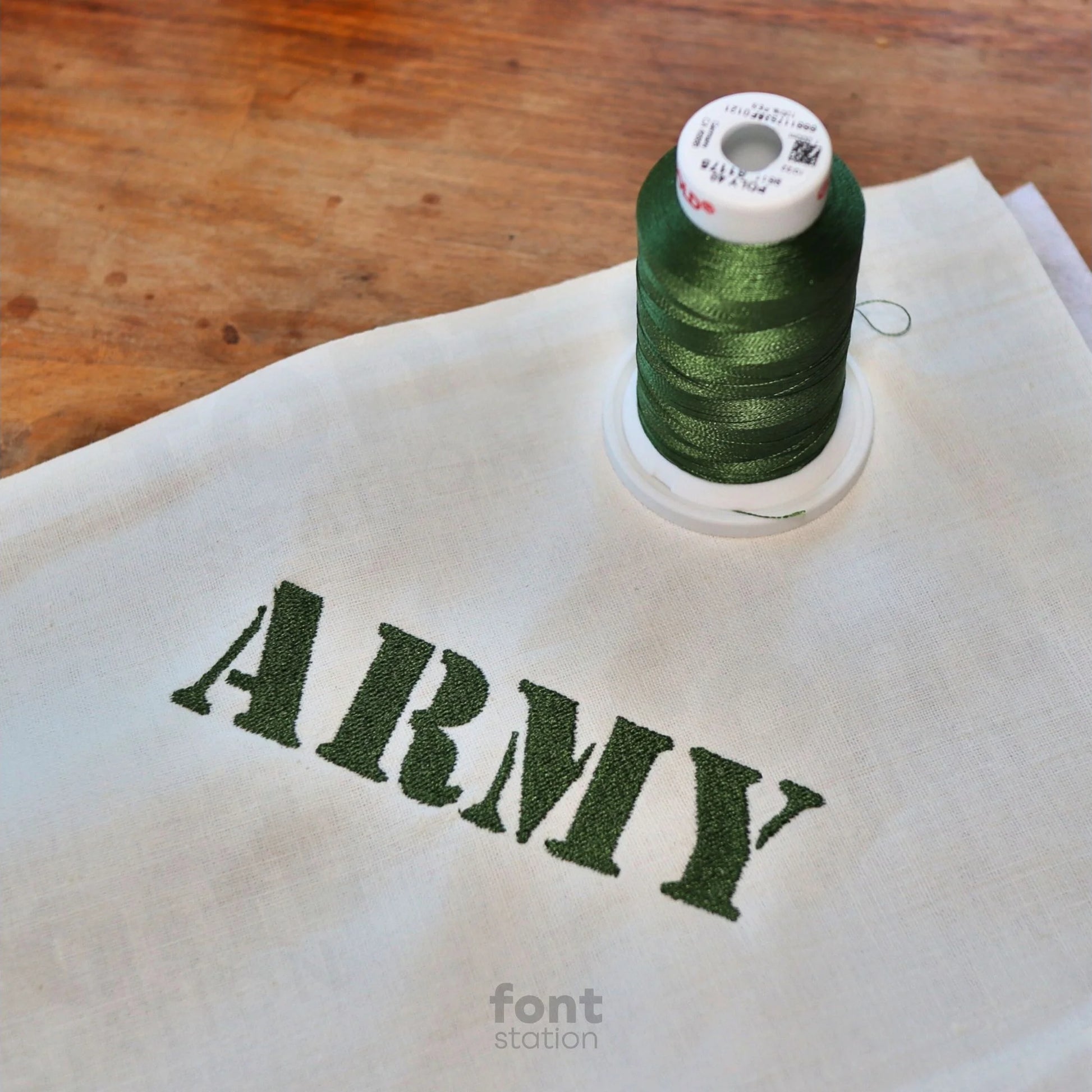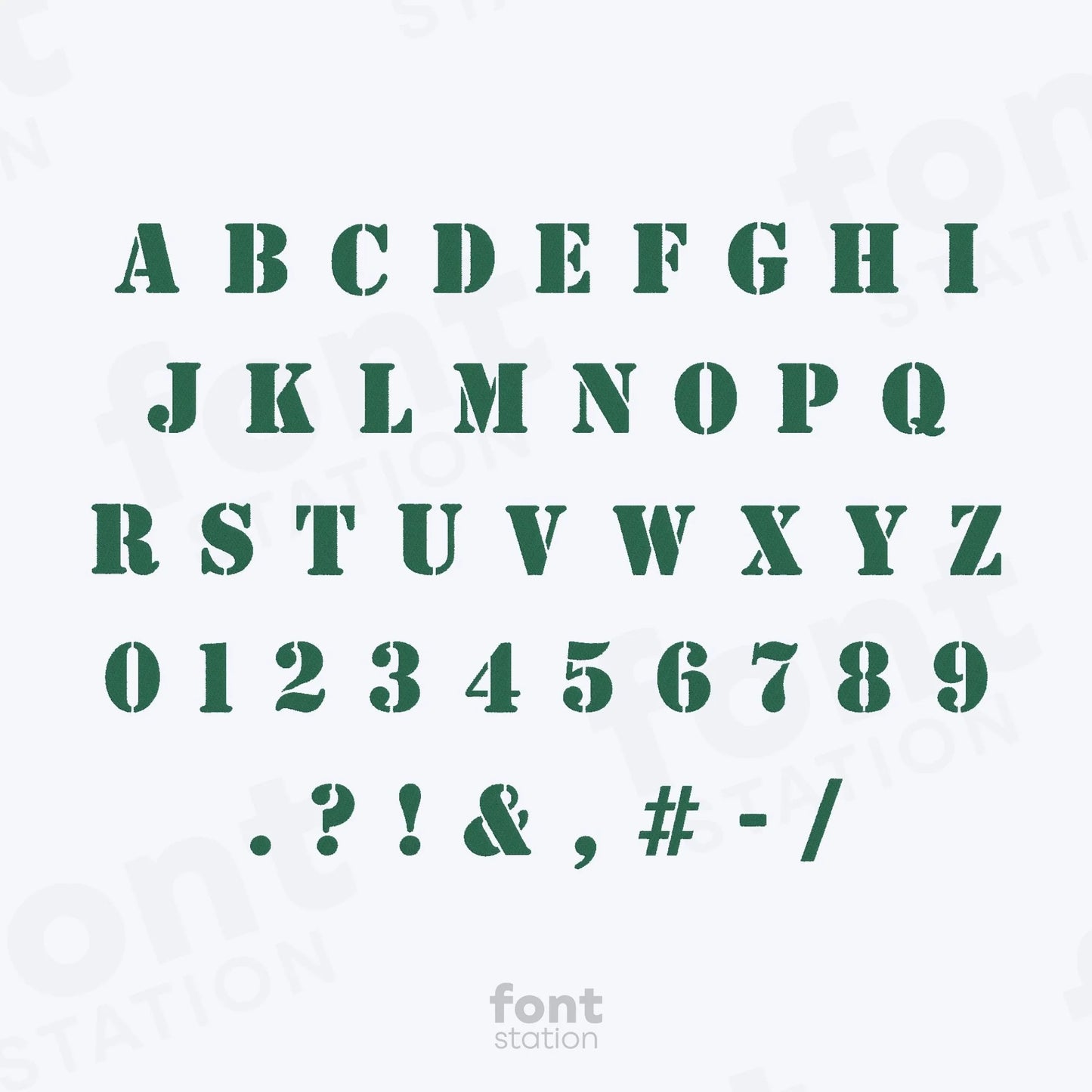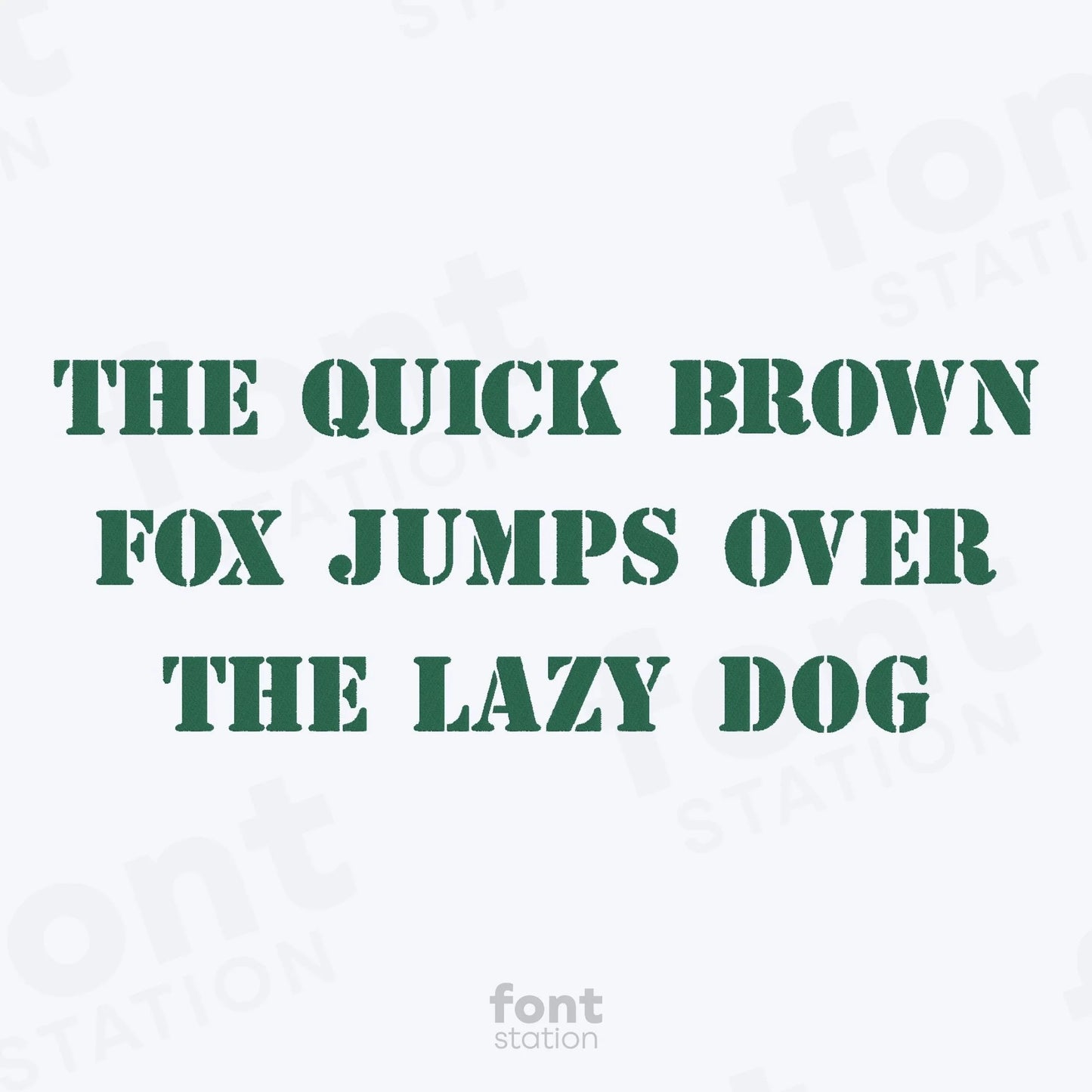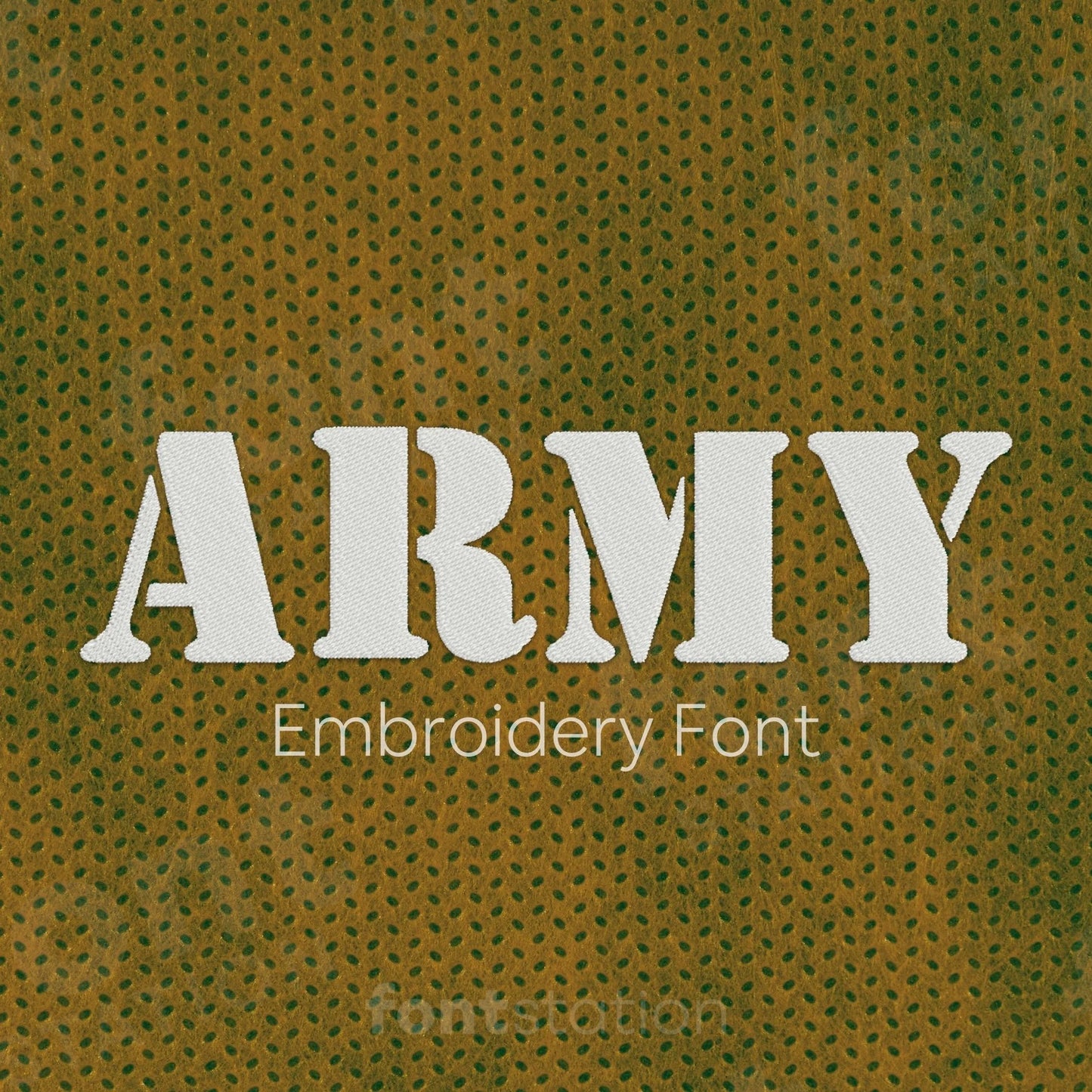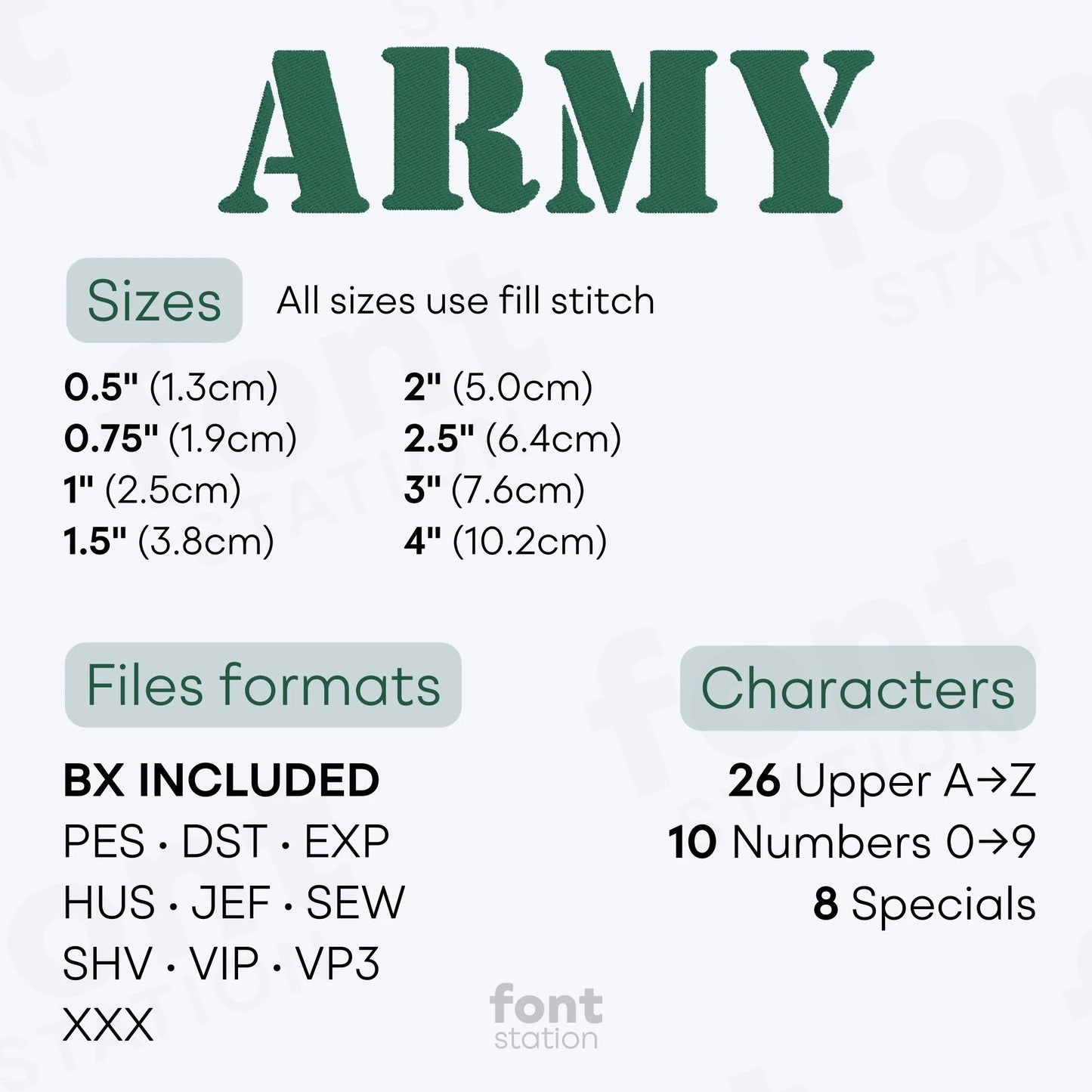
Our Army embroidery font is a bold stencil-style alphabet perfect for military-inspired projects. These rugged letters stitch cleanly on any embroidery machine and are ideal for strong, statement designs.
Characters: 26 uppercase, 10 numbers, and symbols & , - . ! # ? /
Our Army embroidery font brings bold, military style to your embroidery projects.
The Army embroidery font features a classic stencil-style alphabet with strong, clean lines, perfect for military-themed gifts, veteran tributes, uniforms, and personalized gear. This rugged set of embroidery letters is ideal for adding bold names, ranks, or slogans to any fabric. Digitized for precision stitching, it works flawlessly on all major embroidery machines. Available in BX, PES, DST, JEF, EXP, VP3, and HUS formats, this font is ready to elevate your next patriotic or tough-themed embroidery project.